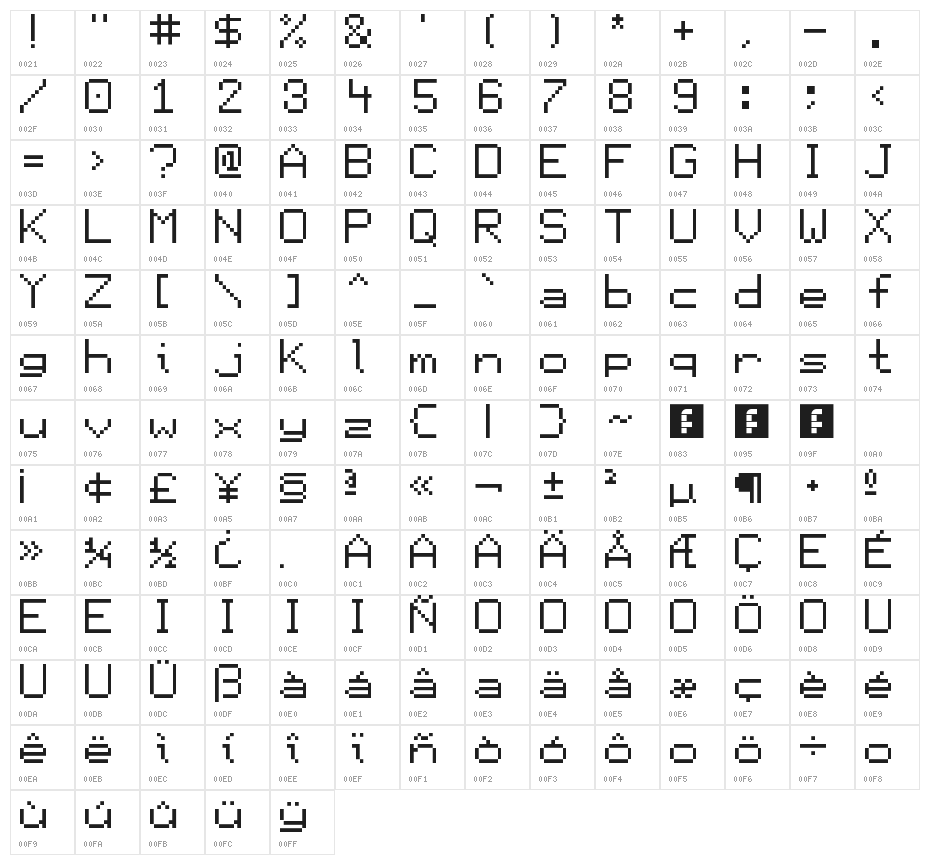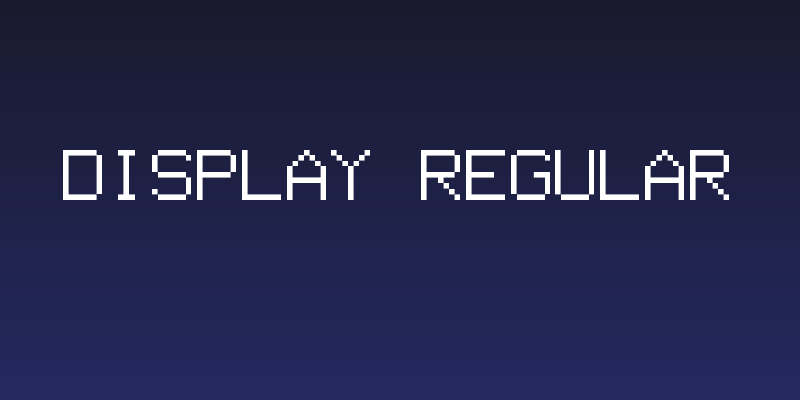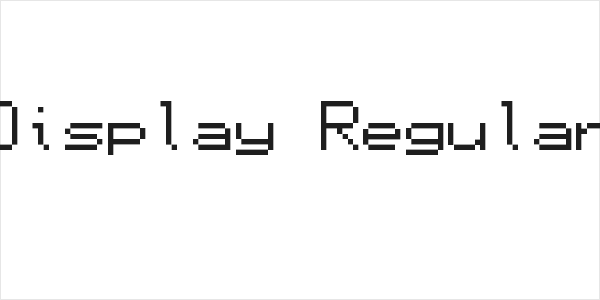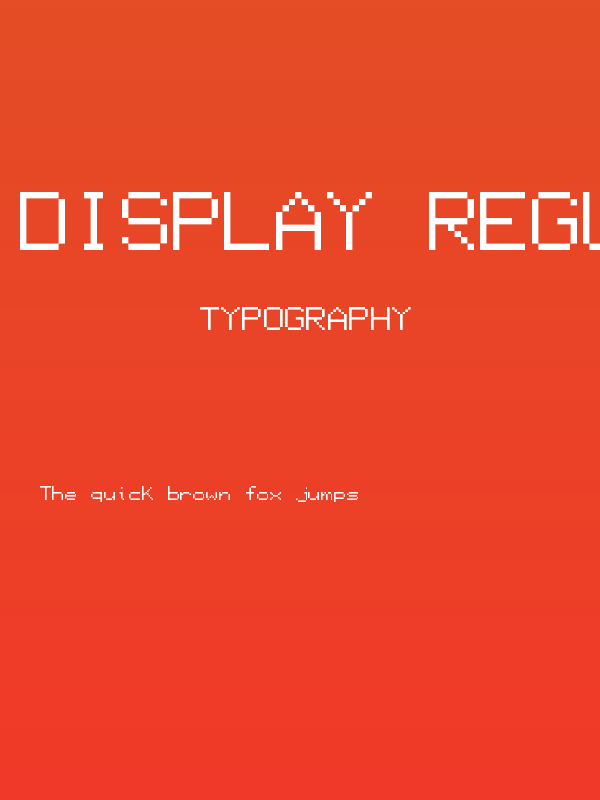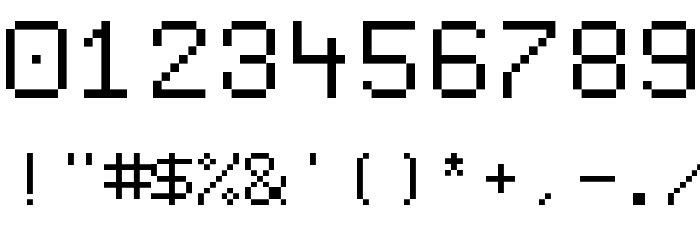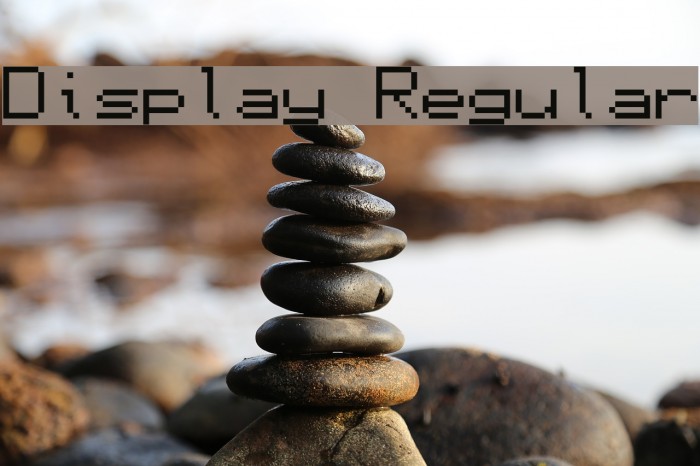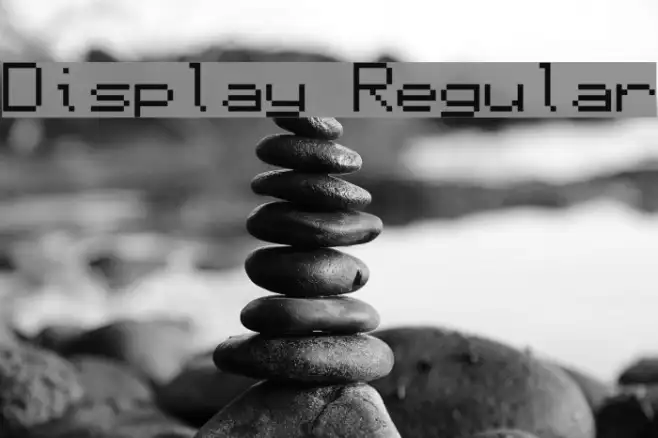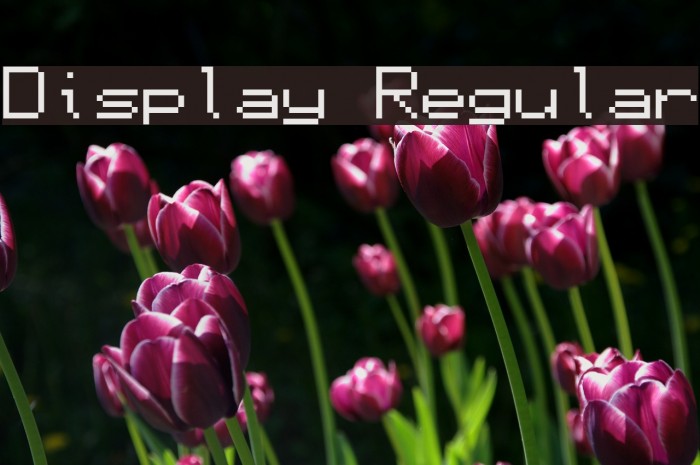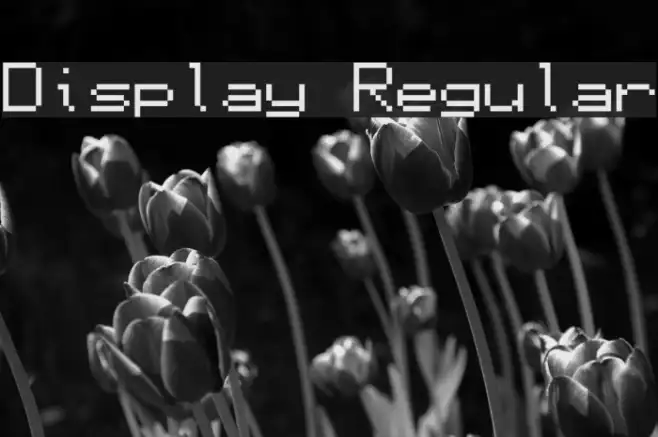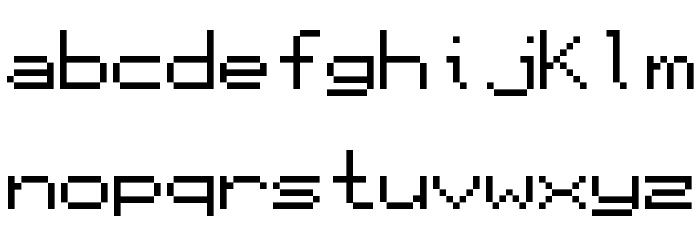
Display Regular Font
Display Regular Description
This font features a pixelated, grid-like structure reminiscent of early digital displays and video games. Each character is composed of uniform square blocks, giving it a distinctly retro, digital aesthetic. The uppercase and lowercase letters maintain a consistent height, with minimal differentiation between the two, enhancing its monospaced appearance. Numbers and special characters follow the same blocky style, ensuring uniformity across all glyphs. The overall design is clean and straightforward, with no curves or embellishments, emphasizing its utilitarian and tech-inspired look.
| Use Case | Logos, Digital displays, Video game text |
| Proposed Projects | Ideal for retro-themed video games, digital art projects, tech-inspired branding, and any design requiring a nostalgic digital feel. |